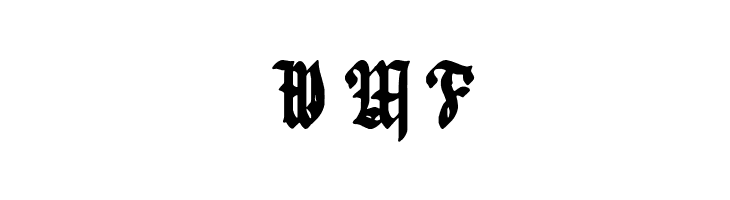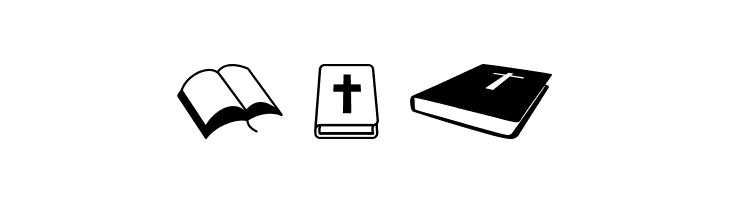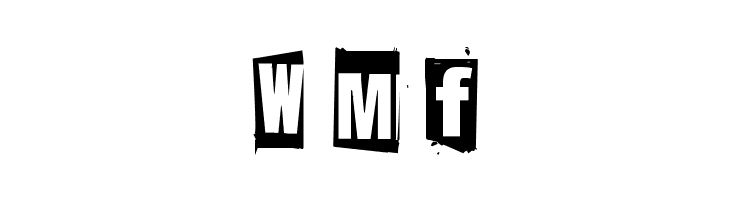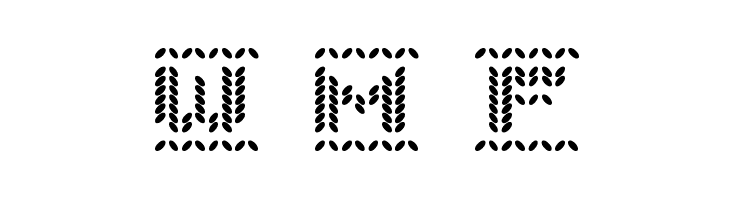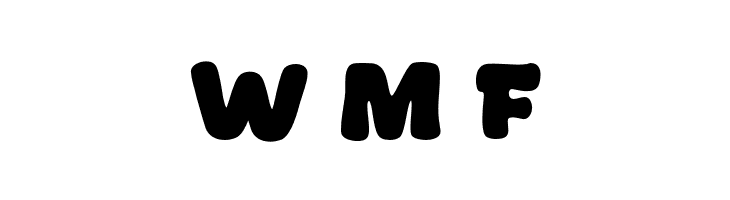
A bold, angular font with a medieval, fantasy-inspired design.
A bold, ornate Gothic font with intricate details and a historical feel.
A religious-themed dingbat font with Bible and Christian iconography.
A bold, dripping font with a dramatic and edgy style.
A bold, decorative icon set themed around Brazilian culture and symbols.
Intricate designs inspired by Russian criminal tattoos, featuring bold, high-contrast artwork.
A bold, military-inspired font with strong outlines and a stencil-like appearance.
A playful collection of Holland-themed dingbats featuring iconic Dutch symbols.
A bold, gothic-style font with sharp, angular lines and a medieval influence.
A bold and dramatic Blackletter font with intricate, angular letterforms.
An ornate Blackletter-style font with outlined characters and decorative flourishes.
A decorative, fictional script with flowing, intricate characters.
A decorative Blackletter font with intricate details and a historical, Gothic style.
A decorative collection of zodiac-themed symbols representing the twelve astrological signs.
A bold blackletter font with sharp, angular lines and intricate detailing.
A bold, ornate Blackletter font with intricate serifs and flourishes.
A bold, grungy font with a distressed, cut-out style perfect for punk and DIY themes.
A playful, knitted-style font perfect for festive and cozy designs.
A traditional blackletter font with bold, intricate letterforms and a historic aesthetic.
A bold, traditional blackletter font with sharp, angular lines and intricate detailing.
A bold, ornate blackletter font with intricate Gothic details.
A playful, bold font with rounded, puffy characters ideal for fun and creative projects.
A playful, eclectic typeface mimicking cut-out letters, ideal for decorative use.